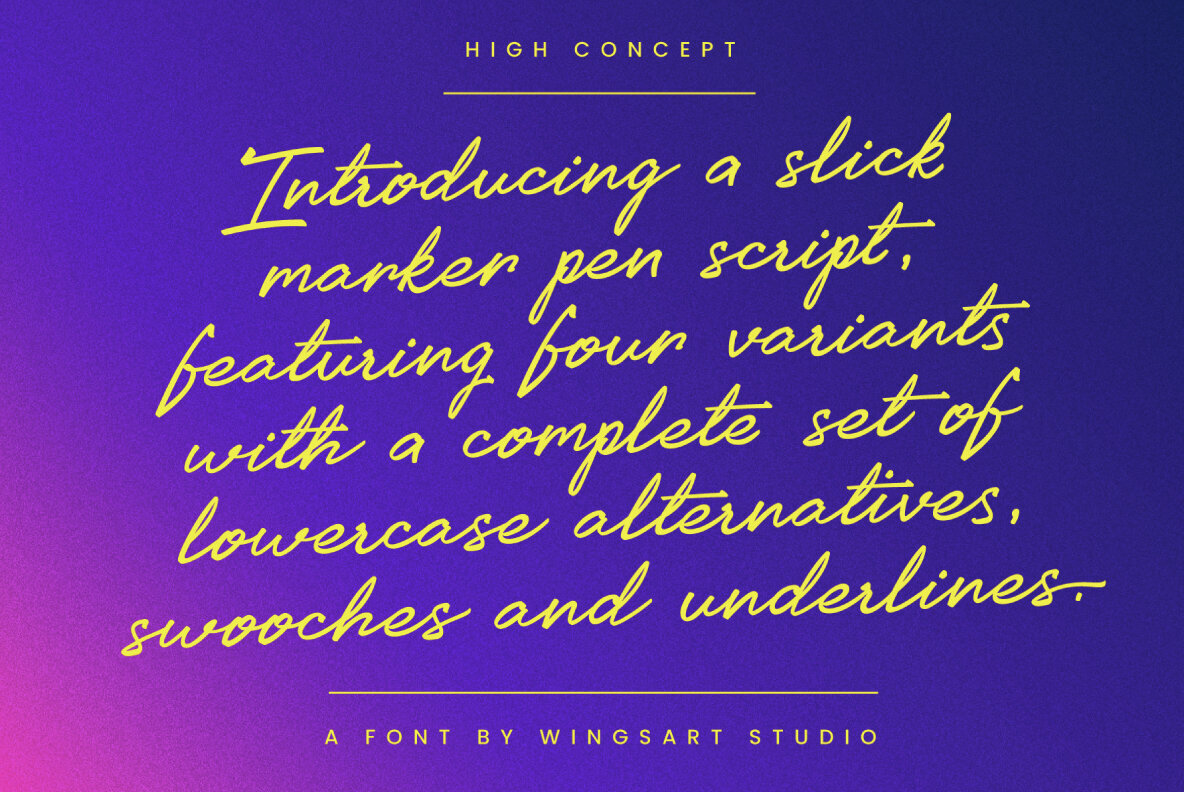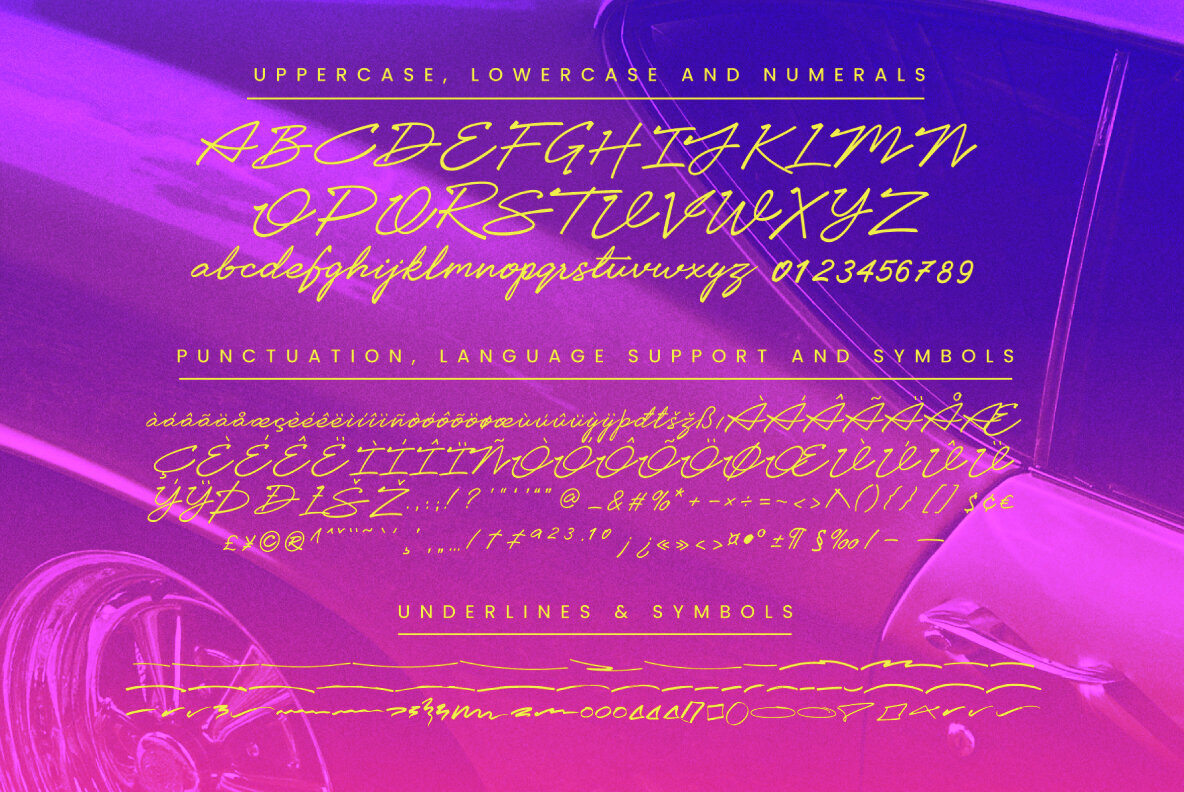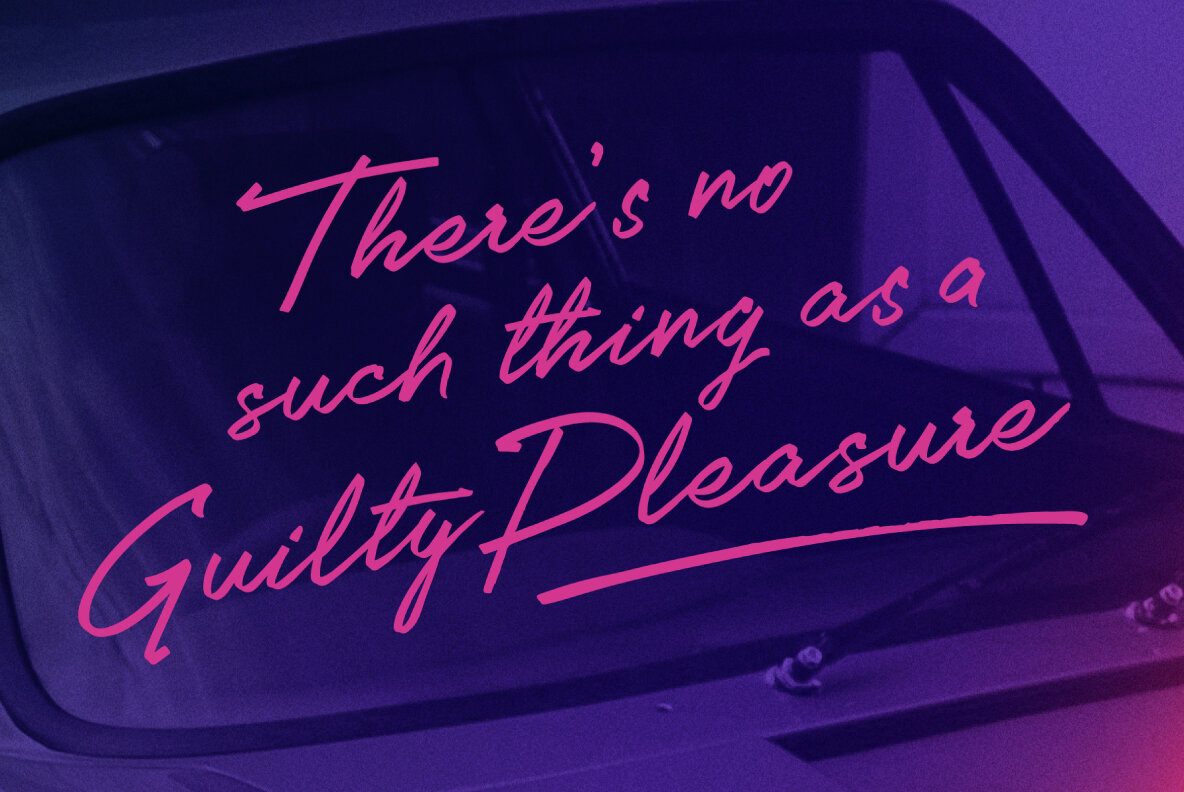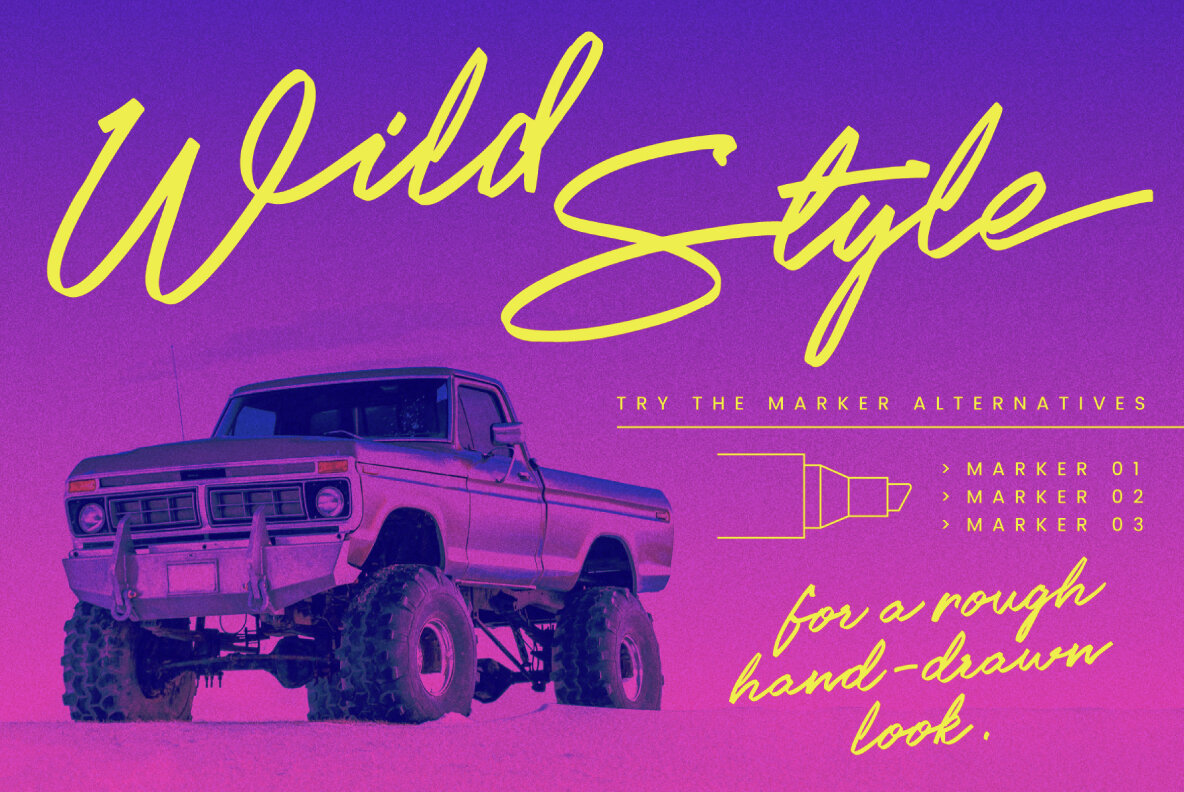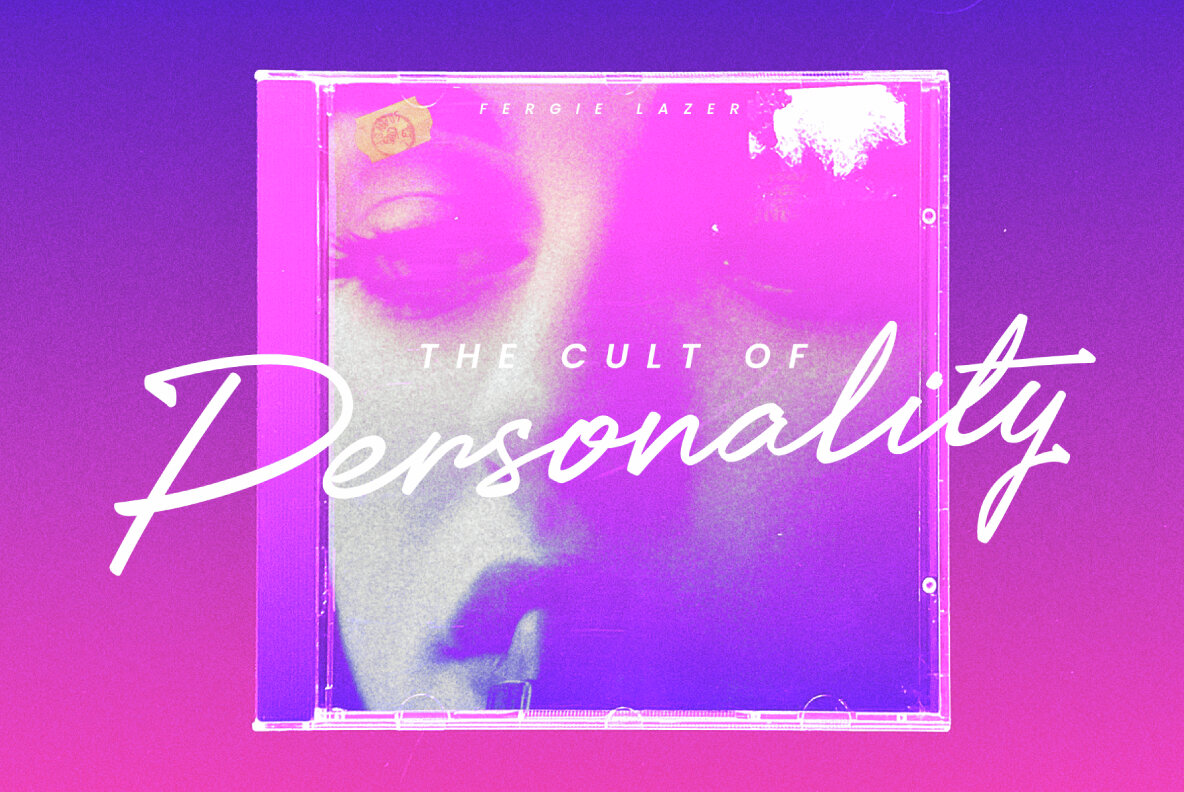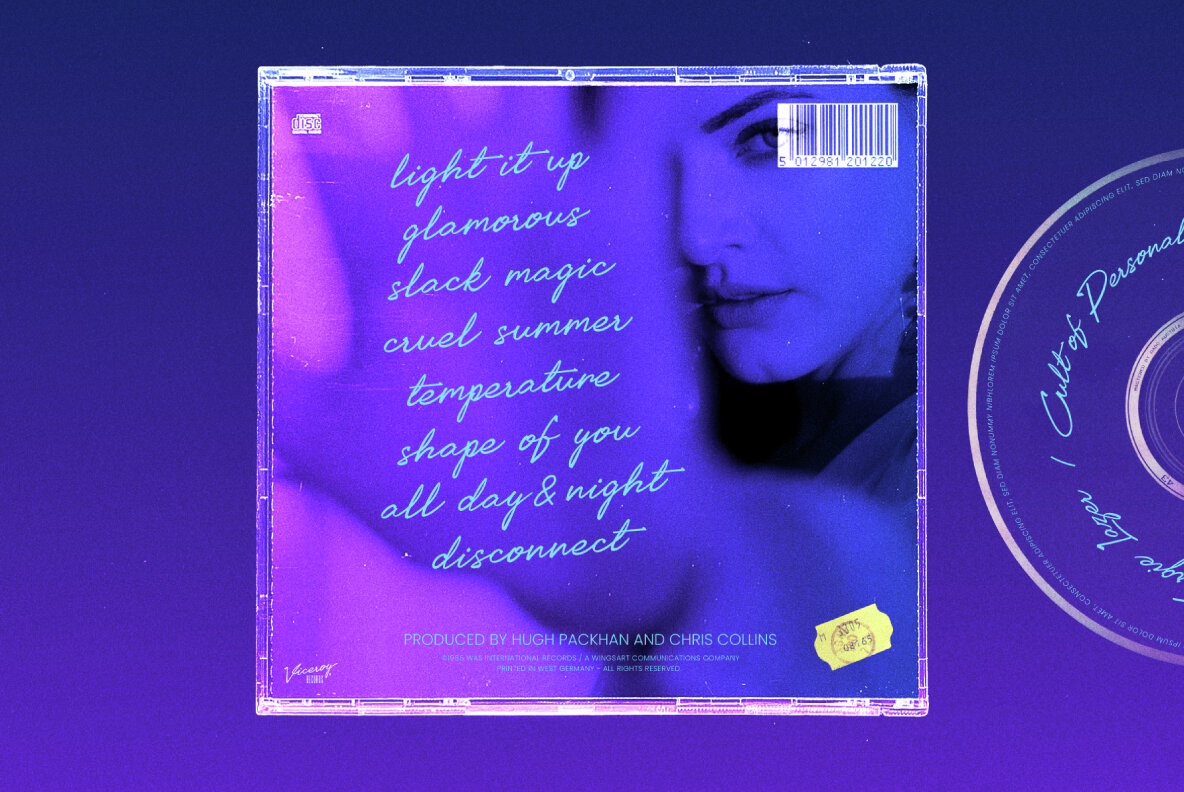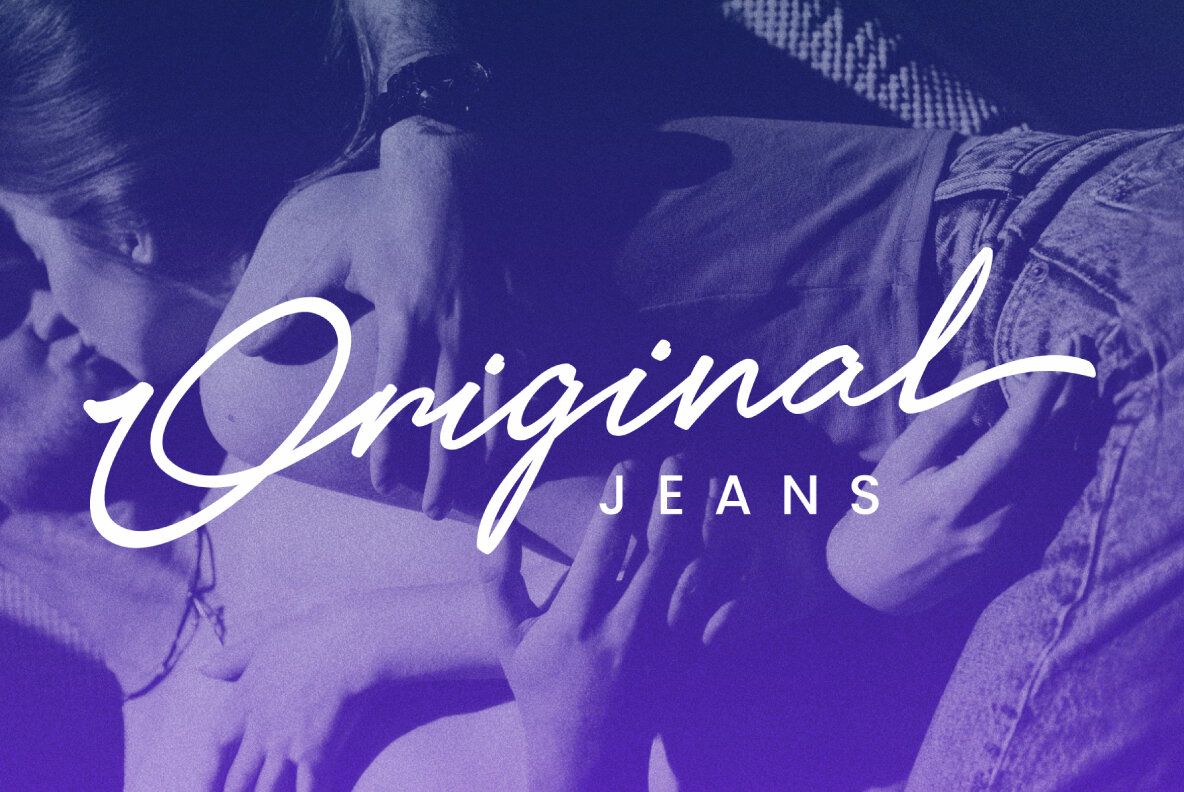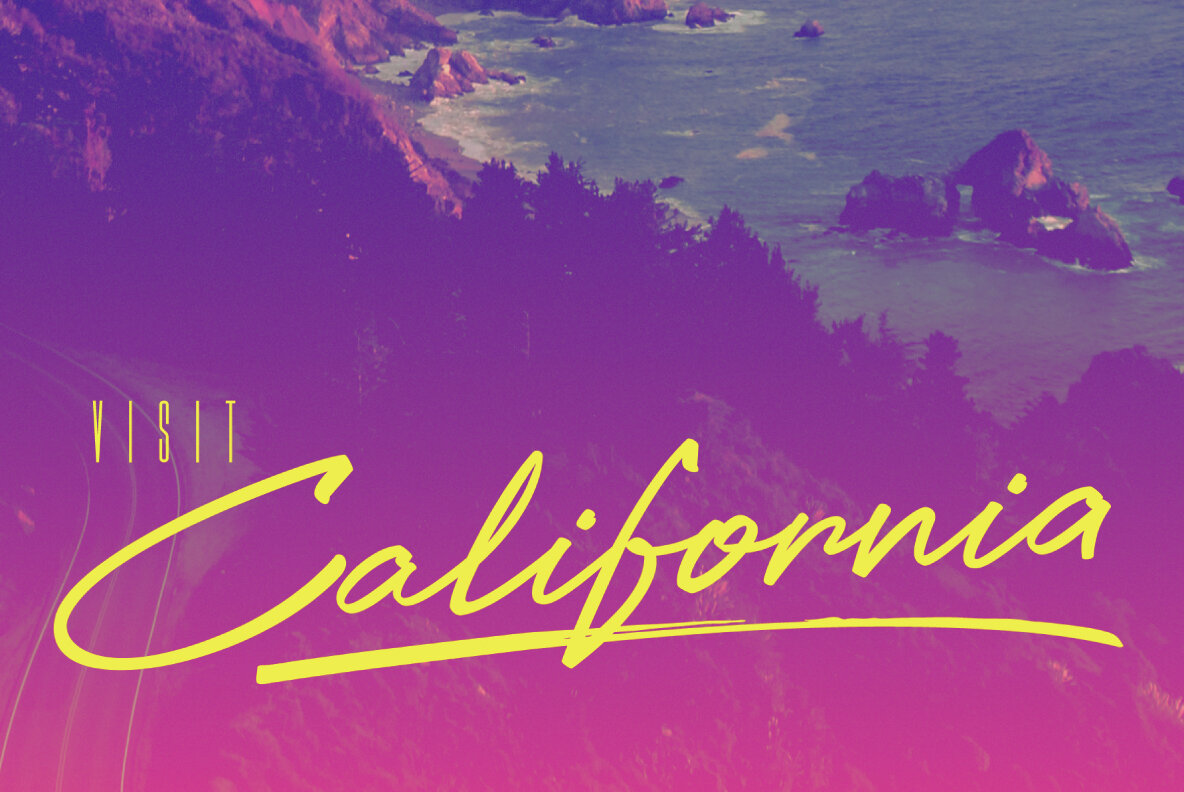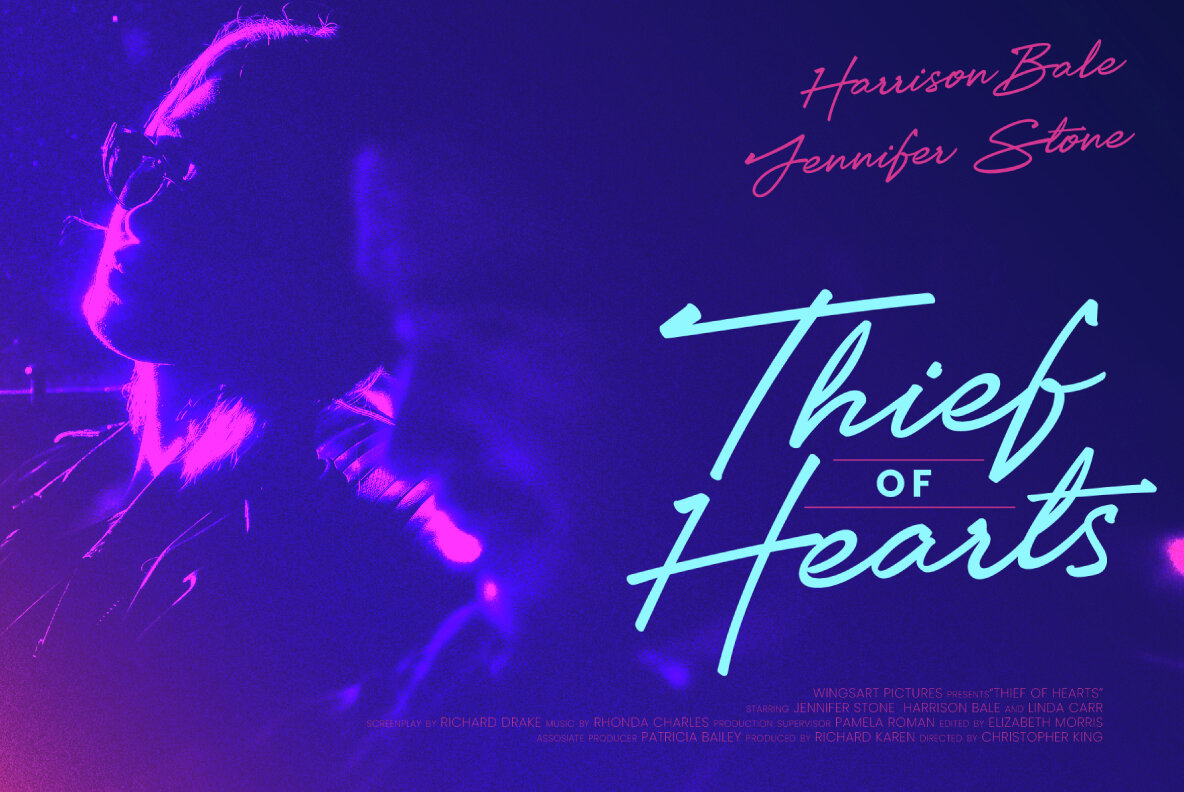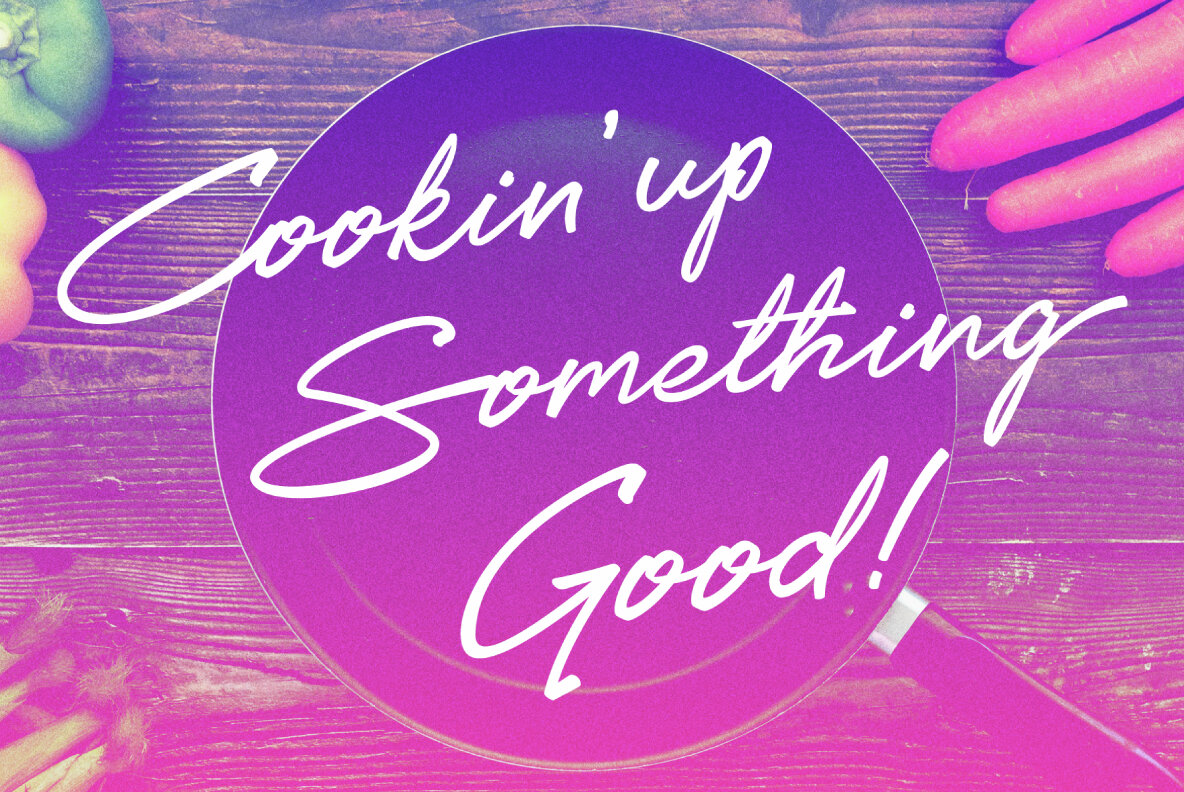
High Concept Font
A Marker Pen Script Font with a Cool, Handwritten Style. High Concept is a modern, versatile script font based on the look of chisel tip marker pens, offering a free-flowing and natural handwritten style. While it echos the retro stylings of 1980s and 90s scripts, it’s also been geared towards more contemporary uses such as modern magazine editorials, cook books, album covers and fashion led advertising. It has a laid-back and friendly aesthetic that can add the human touch to any project. High Concept starts with a clean Regular style and then adds three more variants that offer increased pen textures. Each variant includes a complete set of uppercase and lowercase characters, along with numerals, punctuation, symbols and language support. They all also include a complete set of alternative lowercase characters and swoosh finishers, along with a collection of decorative underlines and shapes. Whether it’s for a movie trailer, poster, album or novel, these fonts offer an easy way to add a genuinely handwritten look to any creative endeavour. Enjoy! Contents: - High Concept: Regular - High Concept: Alternatives - High Concept: Marker - High Concept: Marker Alternatives - High Concept: Marker 02 - High Concept: Marker 03 - Underlines and Symbols